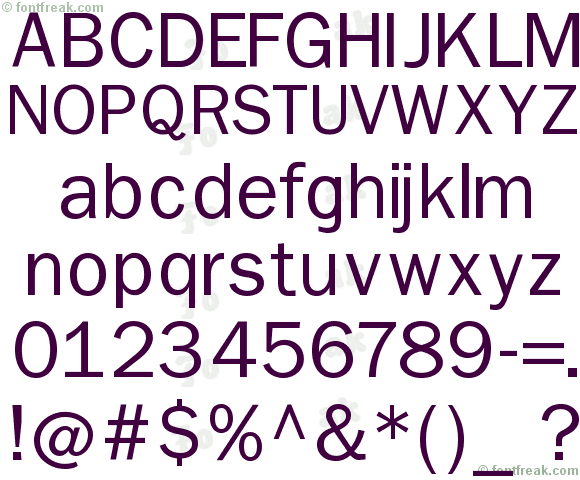
Nonserif-Regular
Nonserif-Regular, crafted by the talented Manfred Klein in November 2003, is a standout font in the sans-serif category. Renowned for its clean and modern aesthetic, this font features a consistent stroke weight that provides a harmonious balance between simplicity and elegance. The absence of decorative elements allows for a straightforward yet impactful visual style, making it an excellent choice for various design projects. The even spacing of characters enhances readability, ensuring that text stands out in any medium it is used.
This versatile typeface is ideal for a range of applications. Graphic designers often turn to Nonserif-Regular for branding projects, where clarity and professionalism are paramount. Its minimalist look makes it perfect for website headers, where it can convey information effectively without overwhelming the viewer. Small business owners can utilize this font in promotional materials, such as flyers and brochures, to create a cohesive brand identity. Additionally, content creators appreciate its suitability for social media graphics and blog posts, where engaging and legible text is essential. Event planners may find it beneficial for designing clean and stylish invitations, ensuring that the details are both attractive and easy to read.
Targeting graphic designers, small business owners, and content creators, Nonserif-Regular offers a unique blend of functionality and style. Its freeware licensing means it's accessible for personal and commercial projects, making it a practical choice for those who seek quality without financial commitment. In a crowded marketplace of fonts, Nonserif-Regular stands out due to its timeless design and adaptability, proving to be an invaluable resource for anyone looking to enhance their visual communication. Experience the versatility and elegance of the Nonserif-Regular font free download today.